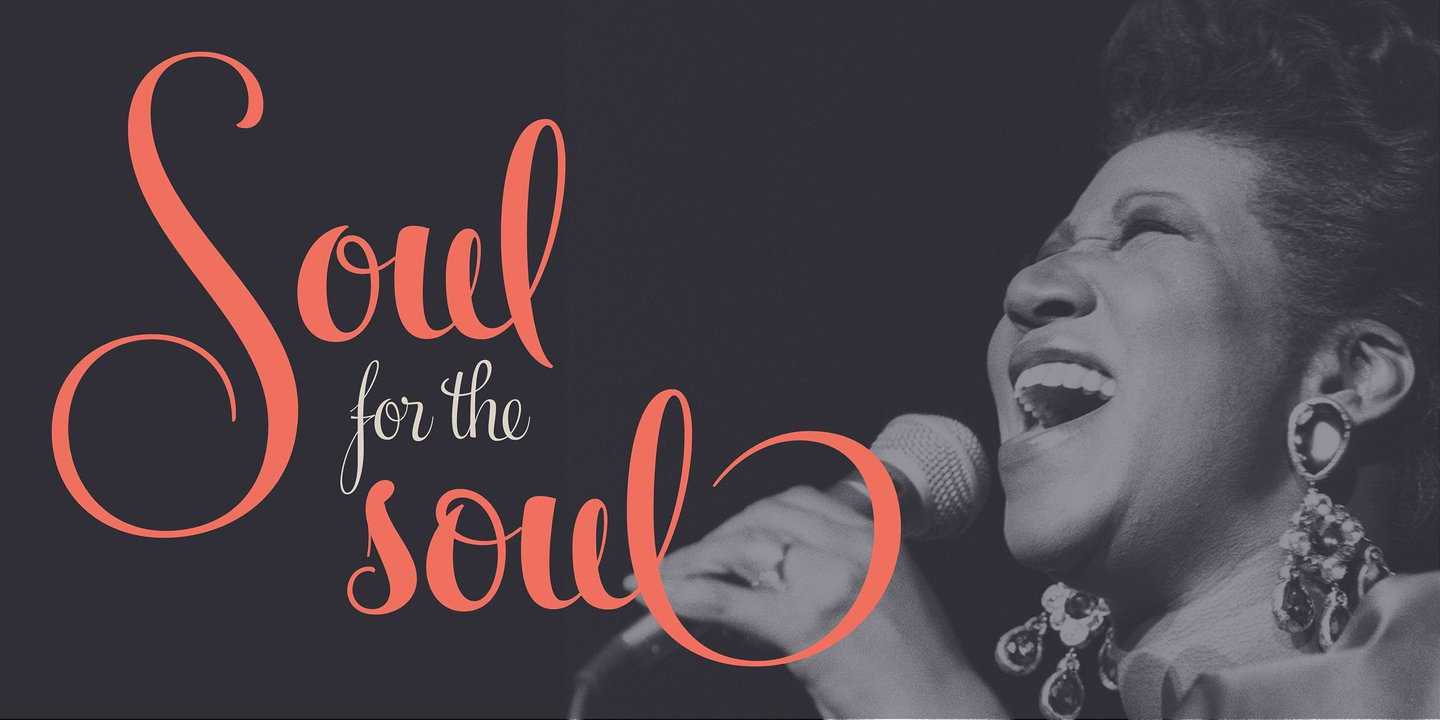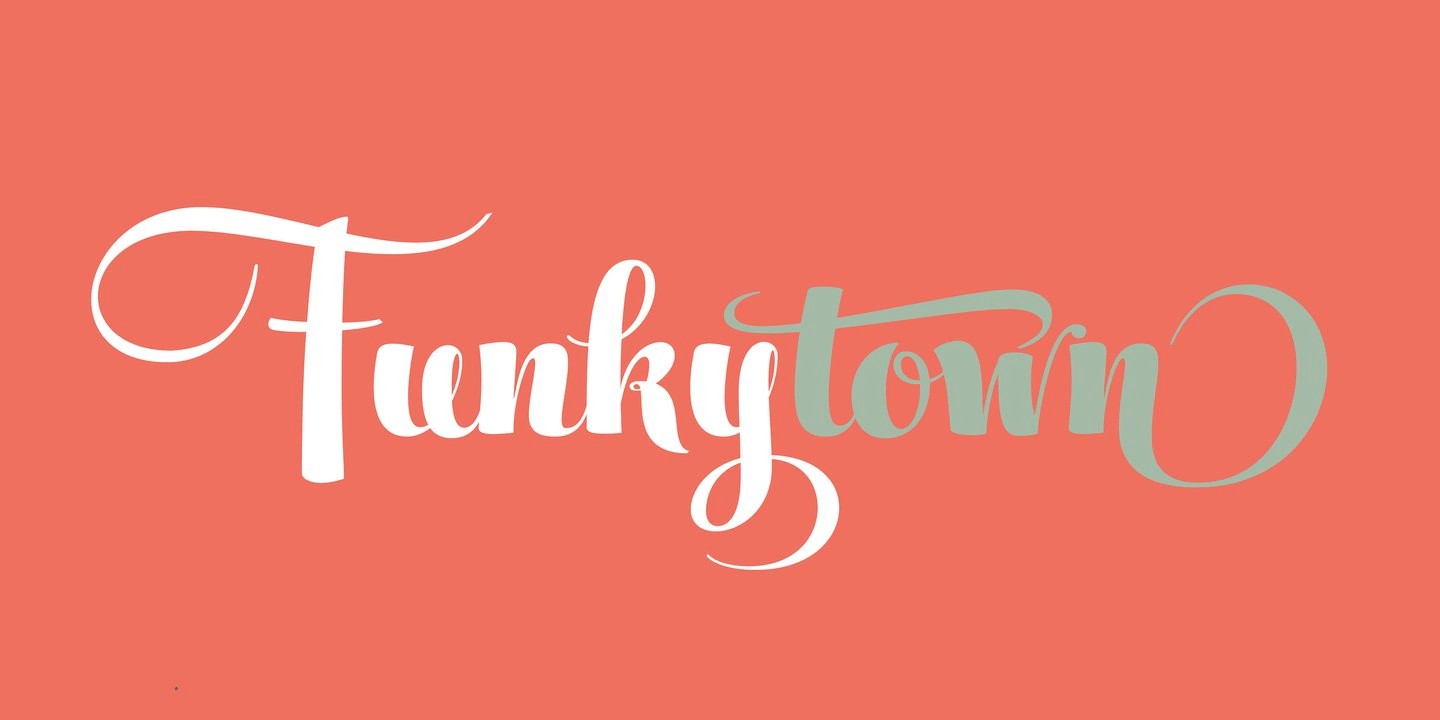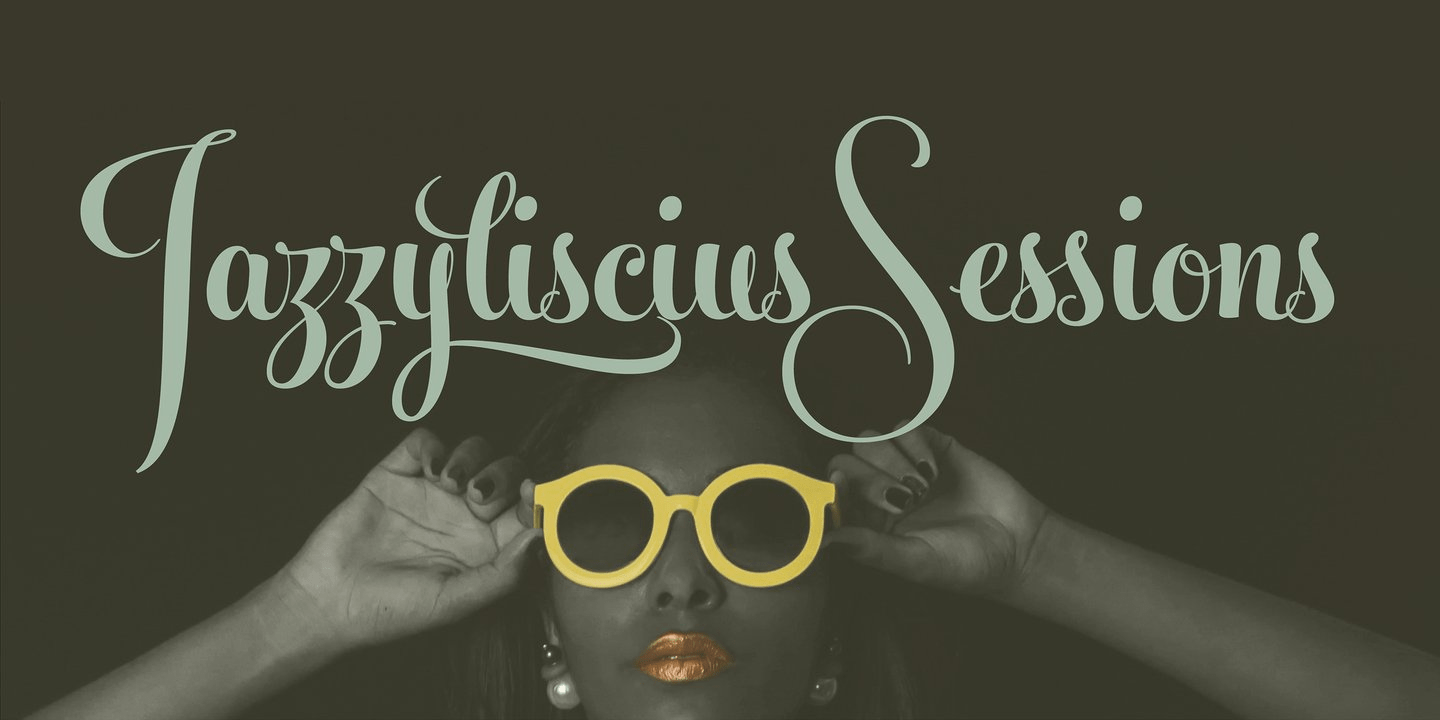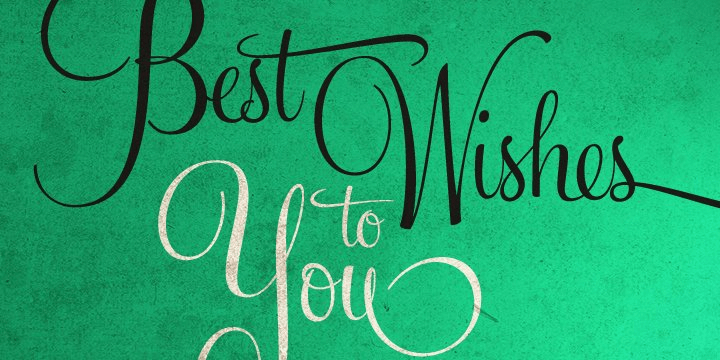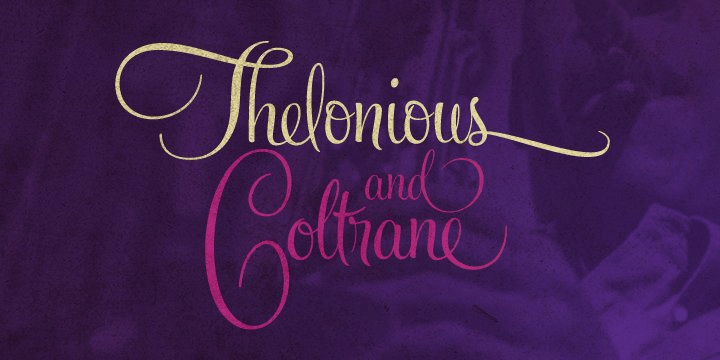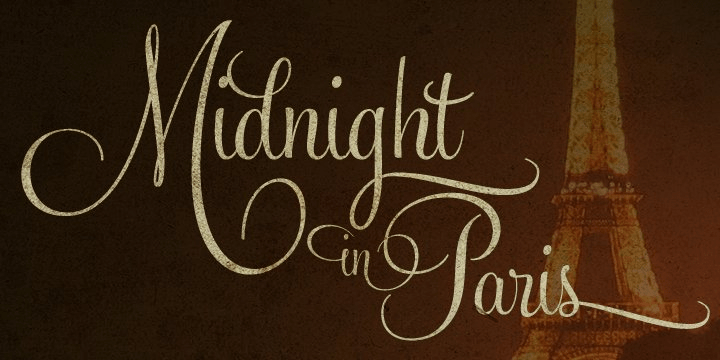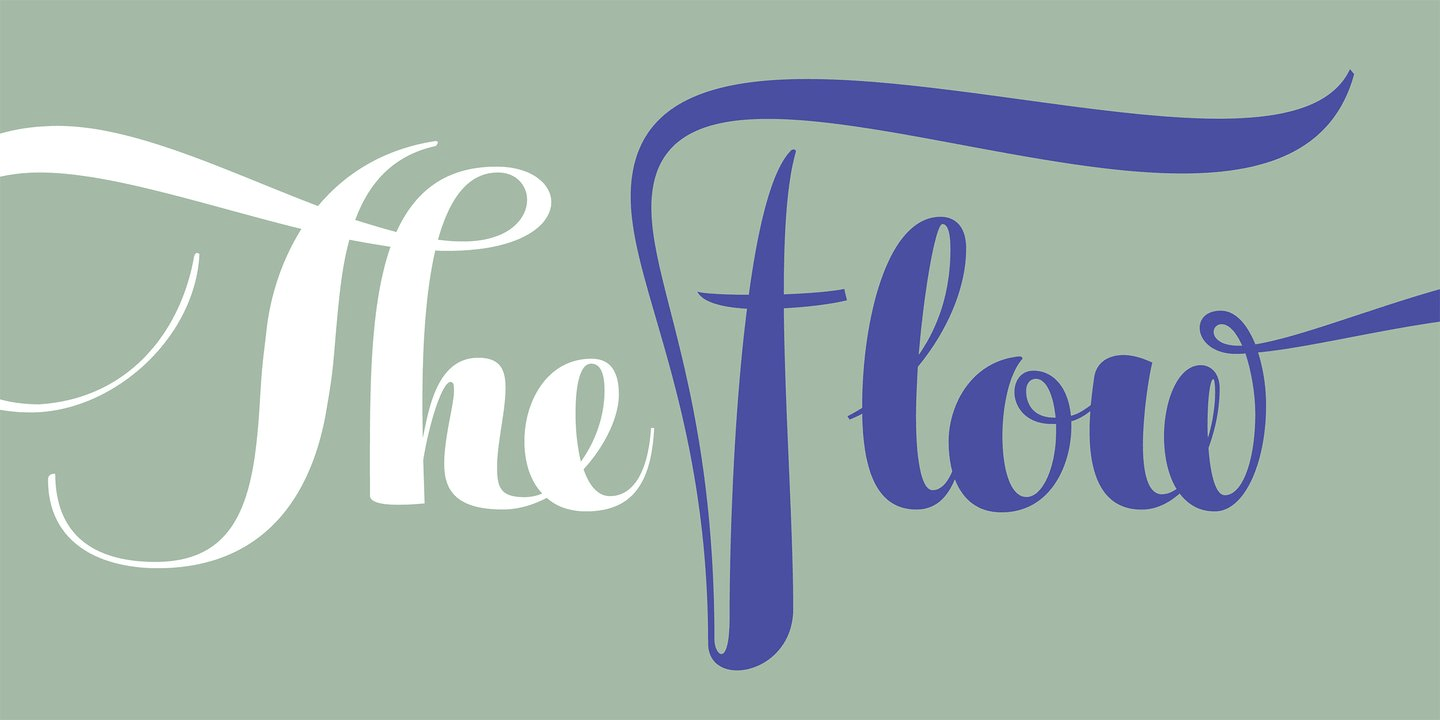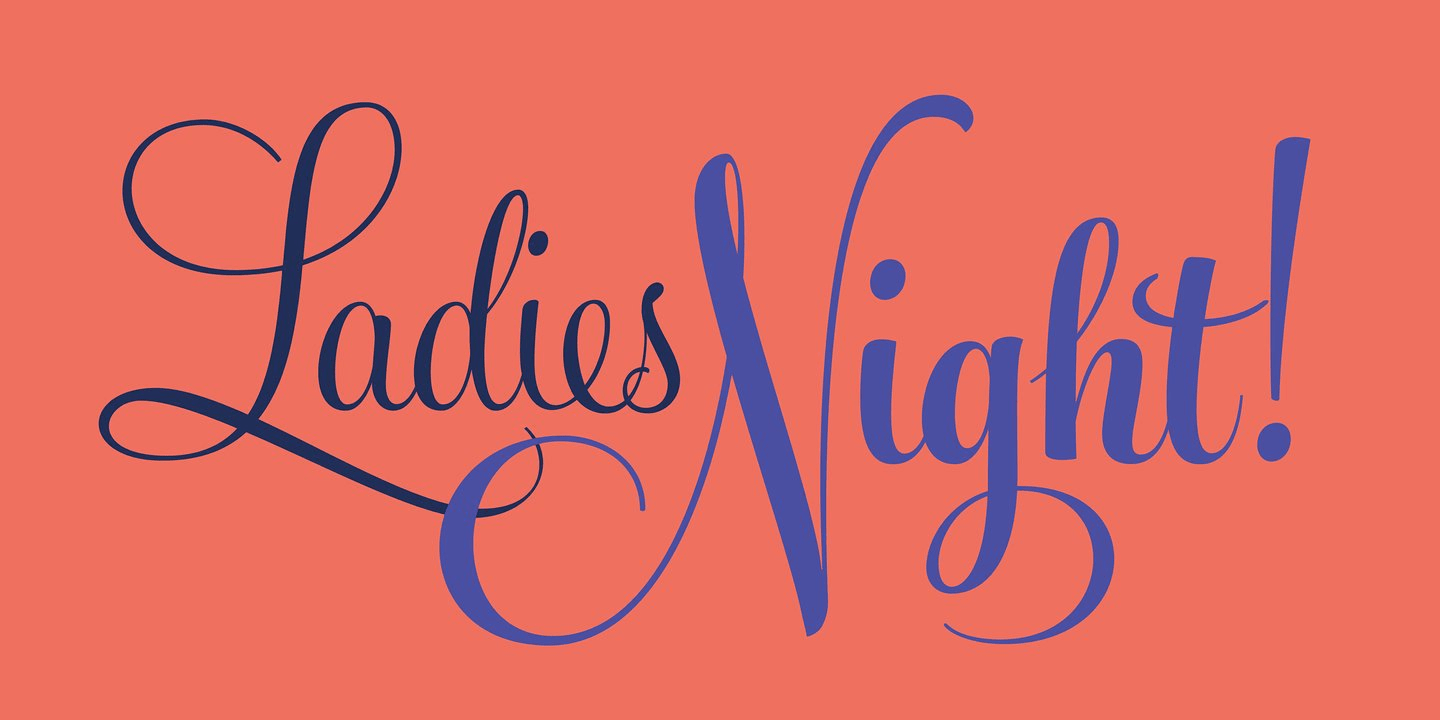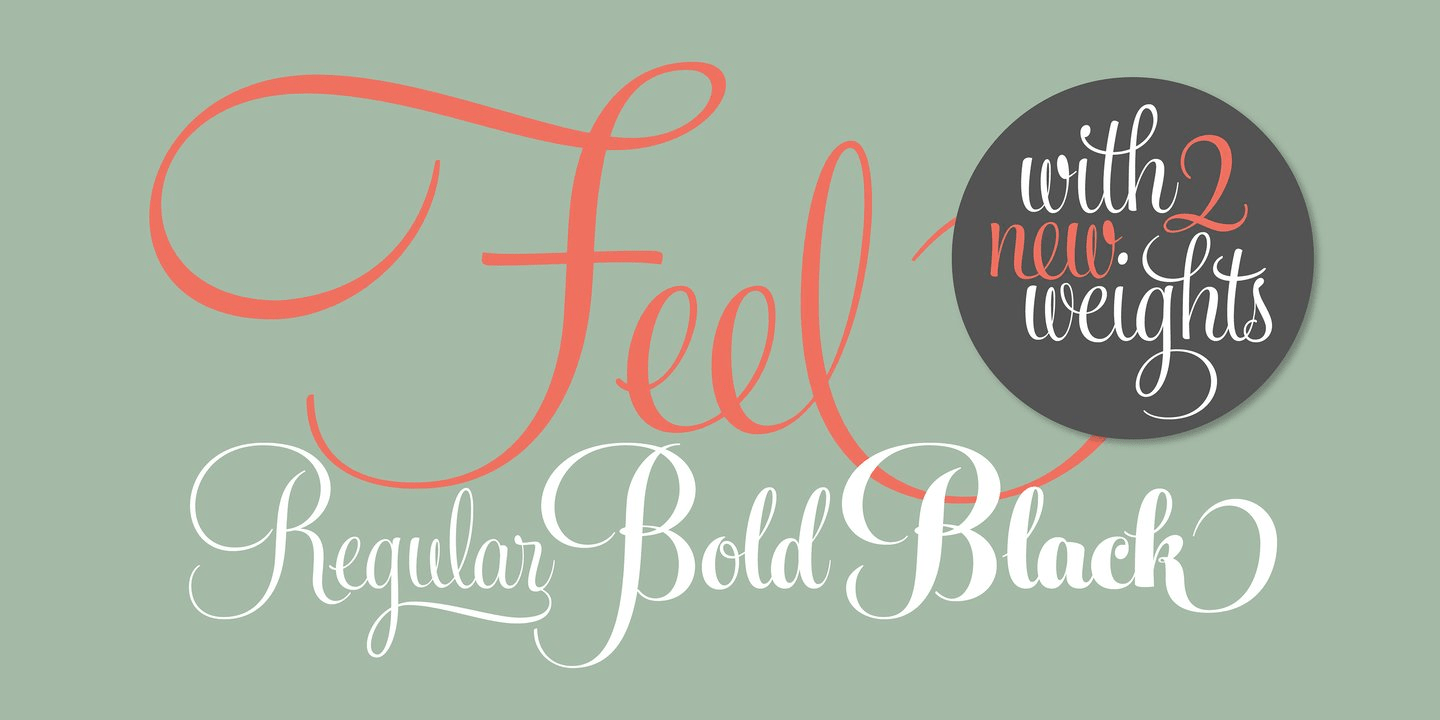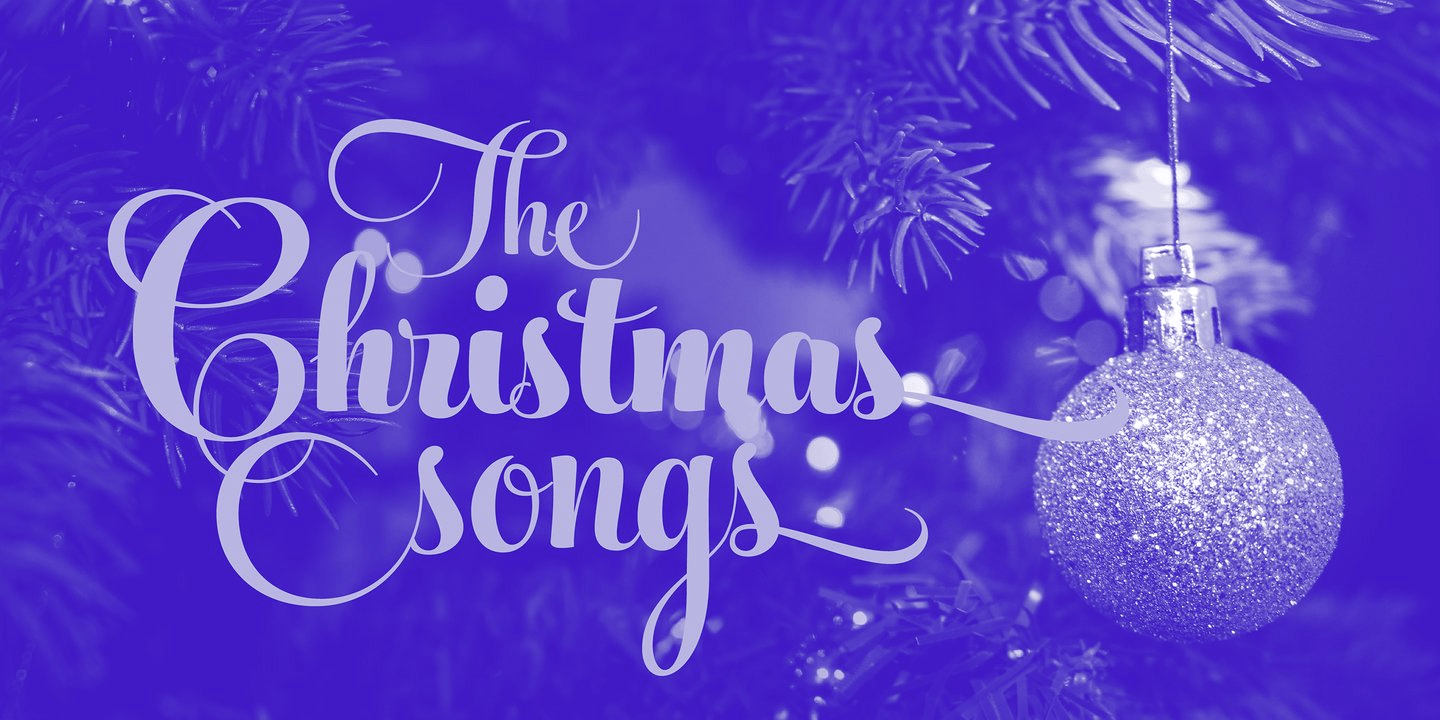
Feel Script
Font Family by Sudtipos
Feel Script is based on lettering that calligrapher and logo designer Rand Holub created for Intertype for his face Monterey. Fortunately, I didn't have the technological limitations today that Intertype had back then. Holub's lettering is presented in its entirety within Feel Script. Some letterforms were redrawn from vintage American magazine ads (some by Holub himself), along with many new alternates, ligatures, ending forms, and strangely beautiful character combinations. The experience I've accumulated from my previous calligraphy typefaces (Ministry Script, Affair, Buffet Script, Burgues Script, et al.) made it easier for me to apply Holub's lettering in a new context using OpenType technology. The usual extended treatment was given to Feel Script, all the way into the implementation of three-letter ligatures and the dreamiest swashes I could imagine. I changed some of the connections between the lowercase letters in order to fit Holub's calligraphy as opposed to the limited Intertype metal attempt.
I hope you like Feel Script. I also hope what I contributed to this particular Holub design is somewhat of a happy ending to a calligraphy story that crosses many technologies. From the pen to computer B